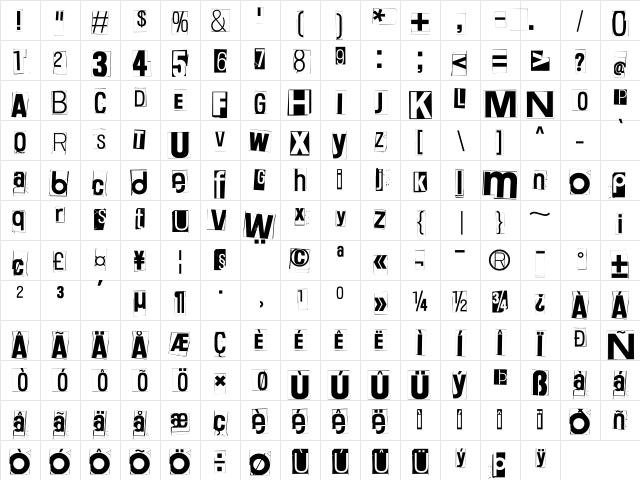
White Square Red Yes Black Eight Zero Zero Regular
Foundry: junkohanhero
Designer: junkohanhero
Design Context for White Square Red Yes Black Eight Zero Zero
White Square Red Yes Black Eight Zero Zero is a composed and adaptable typeface that performs quietly and consistently across a wide range of design contexts.